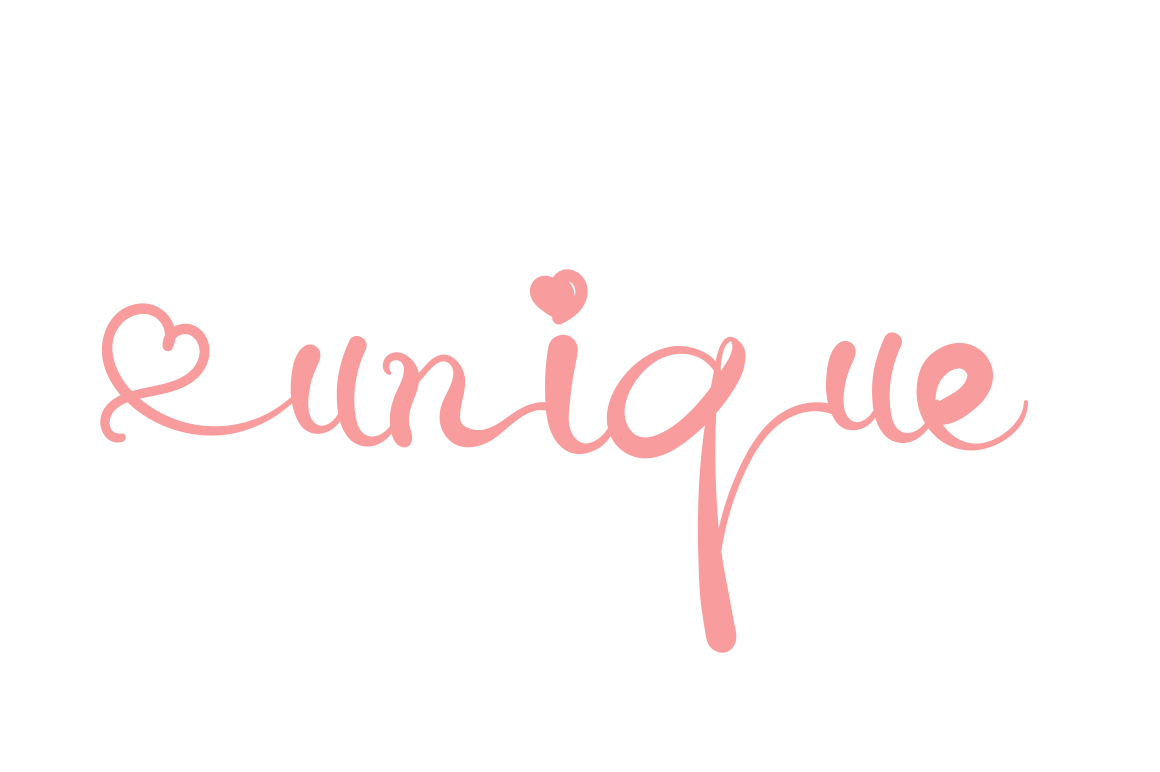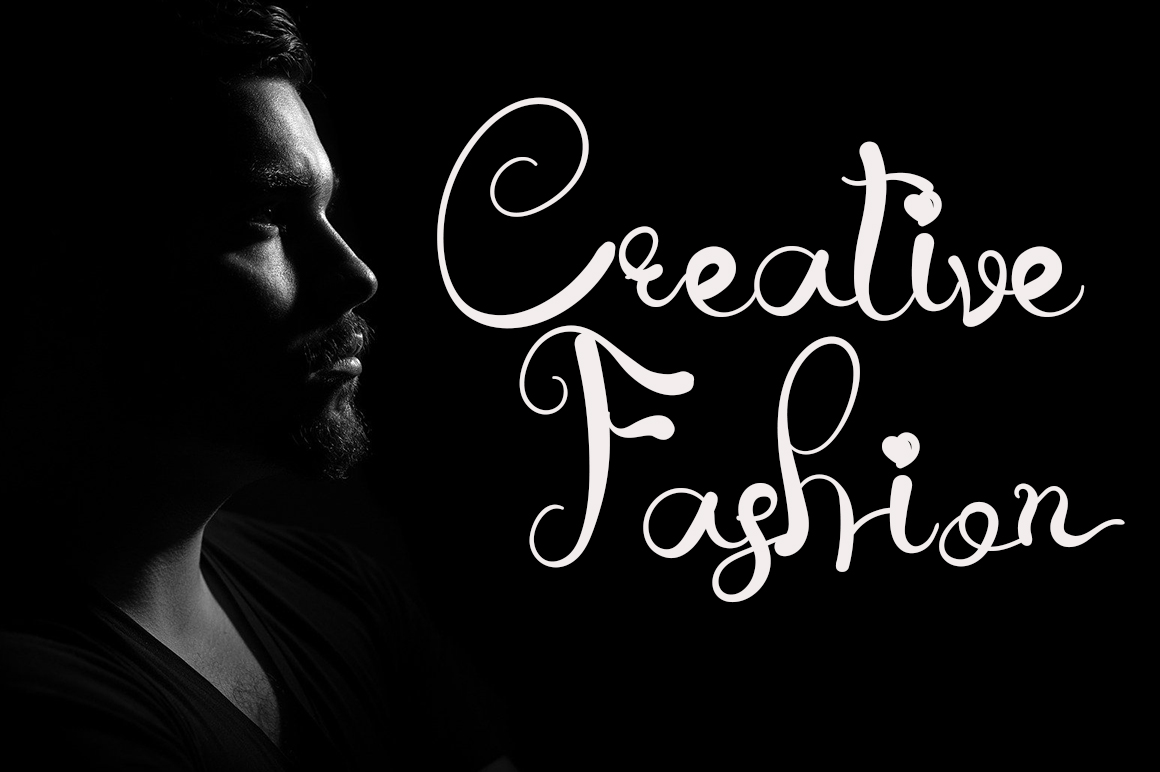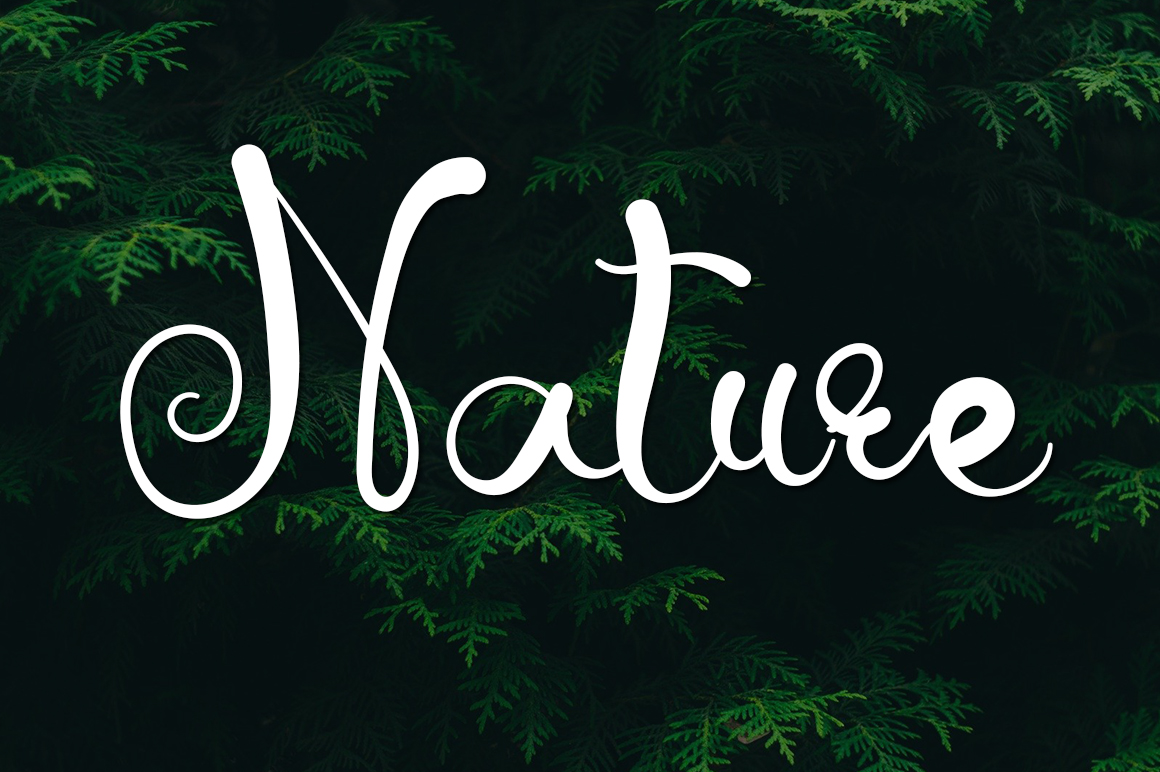
The Script Font
It’s a gorgeous handwritten font. It looks stylish and romantic, and it fits perfectly with any project that needs an authentic and delicate touch!